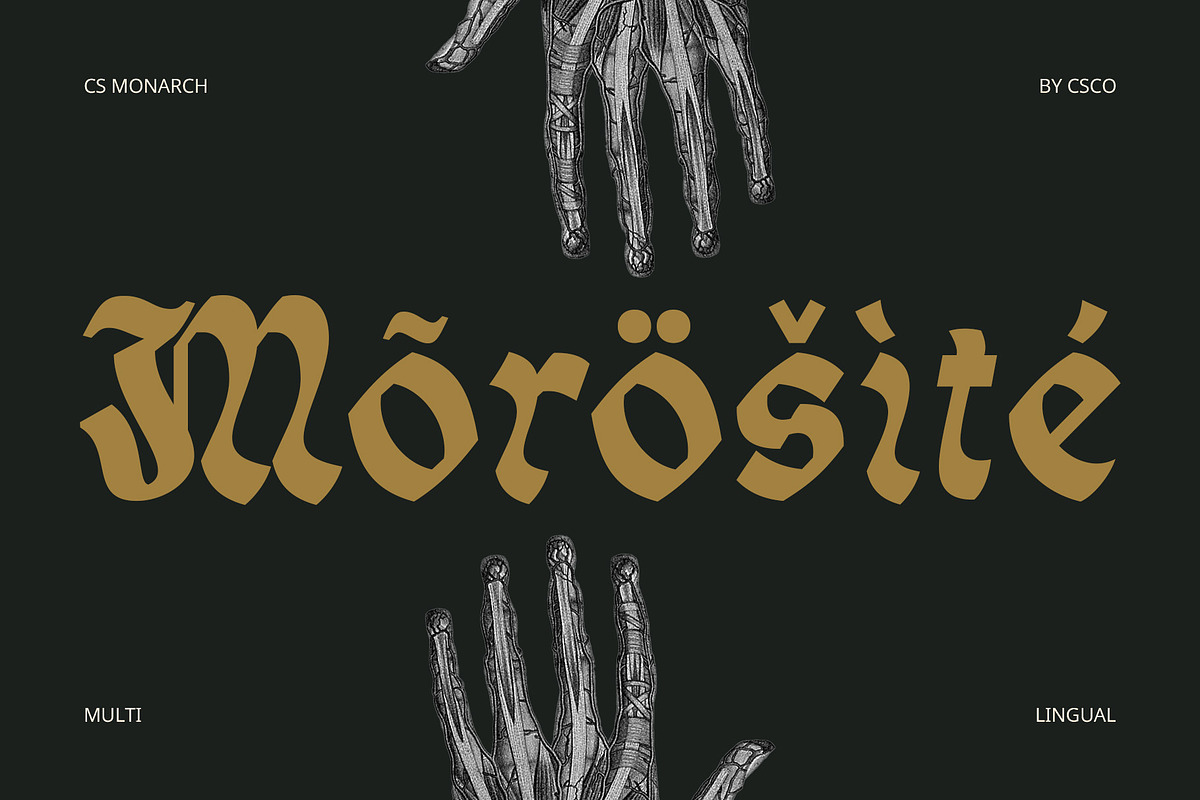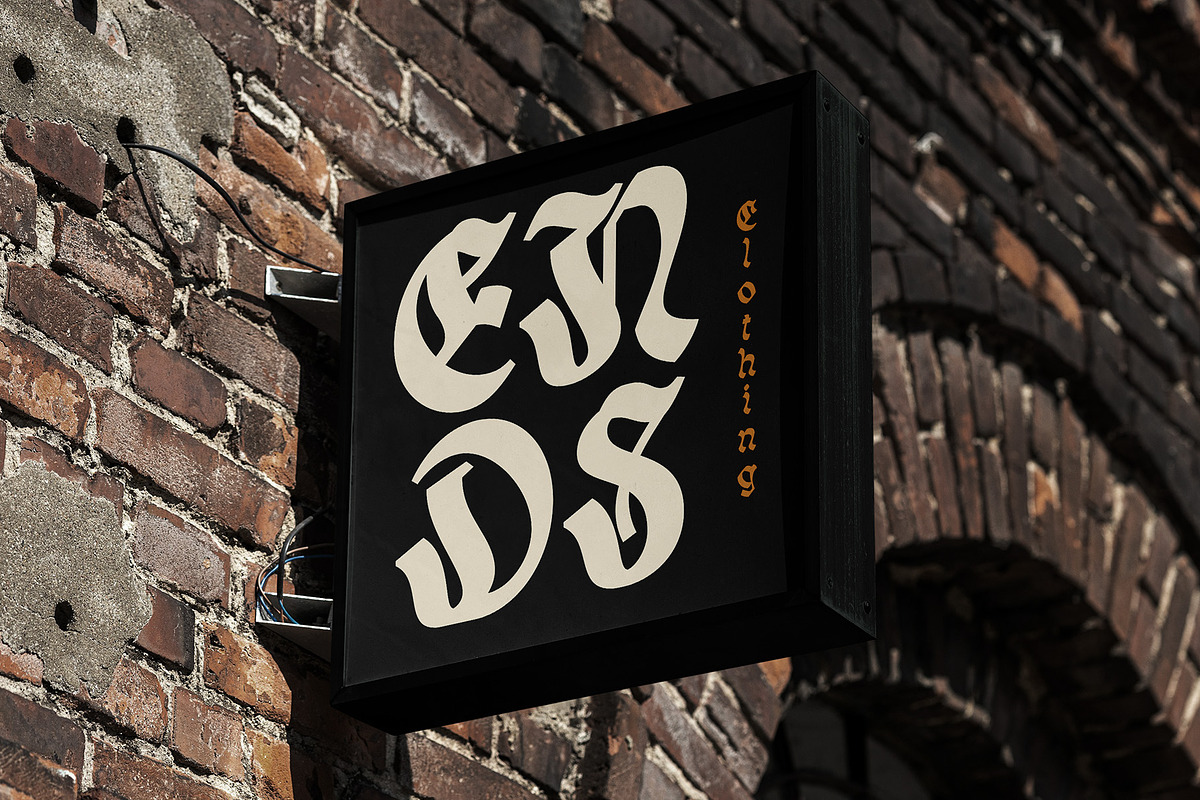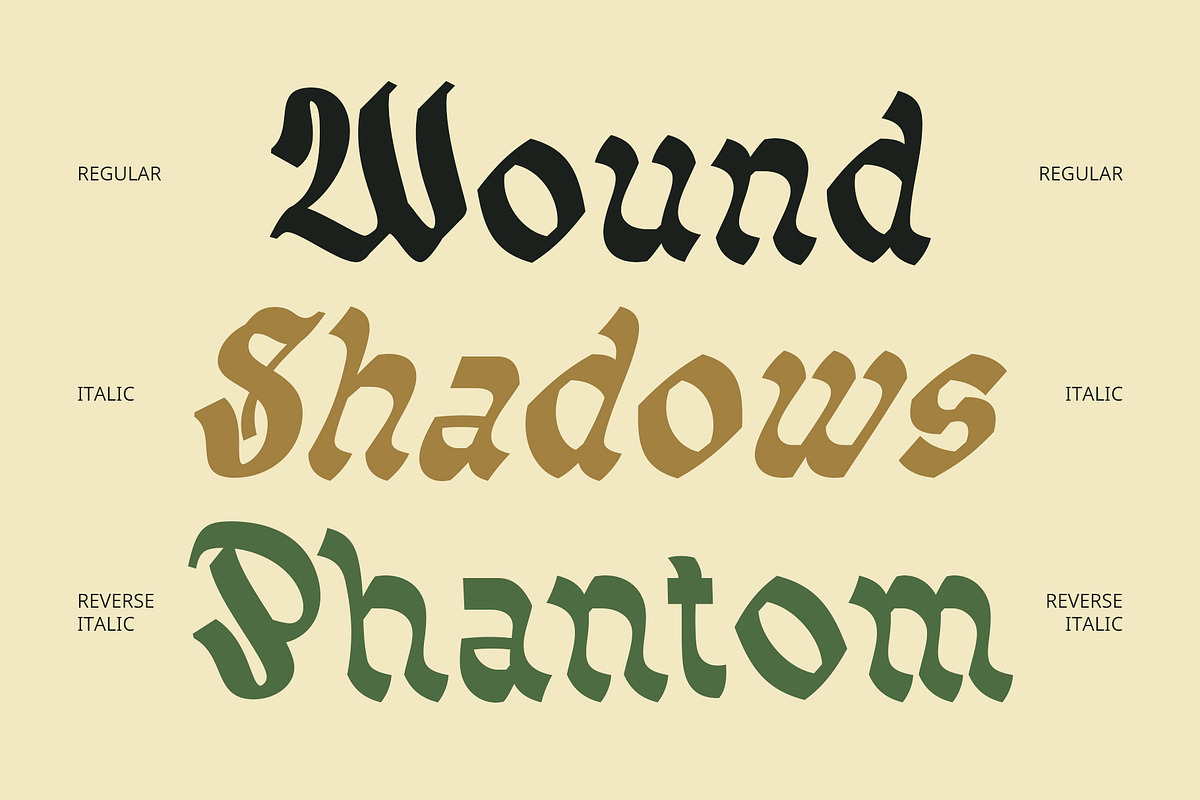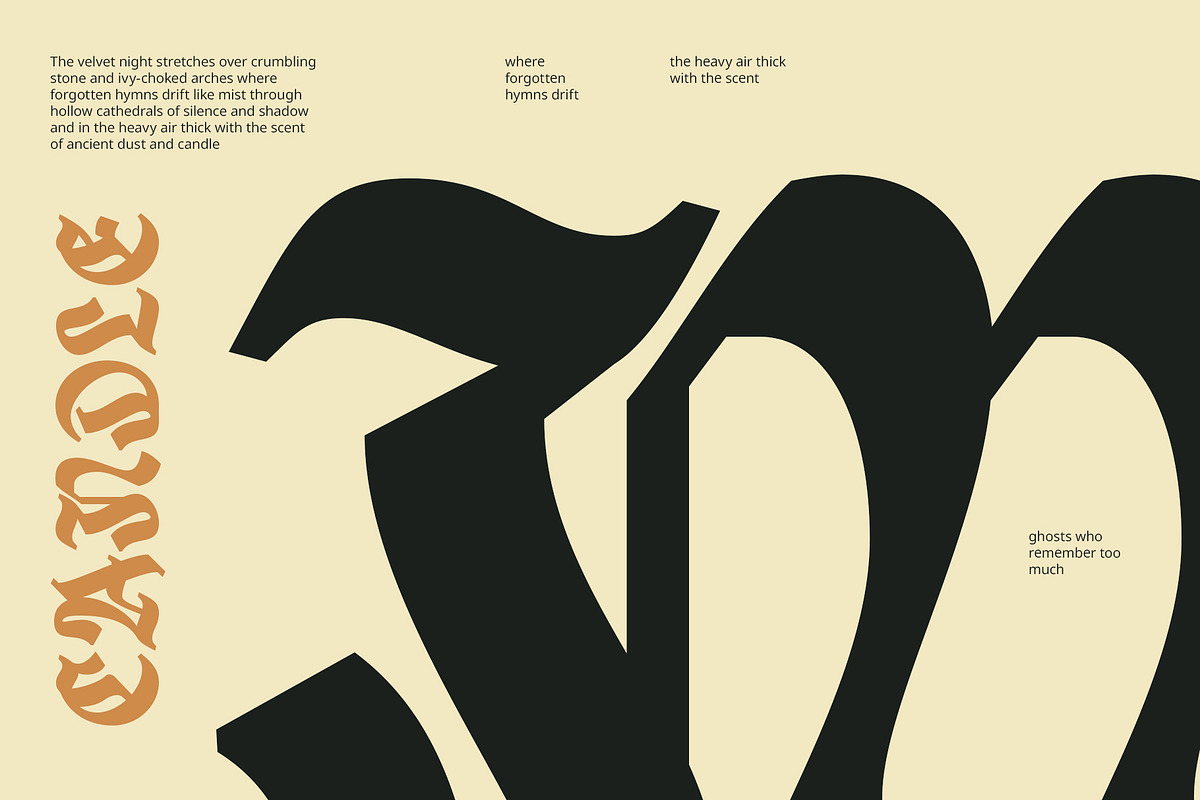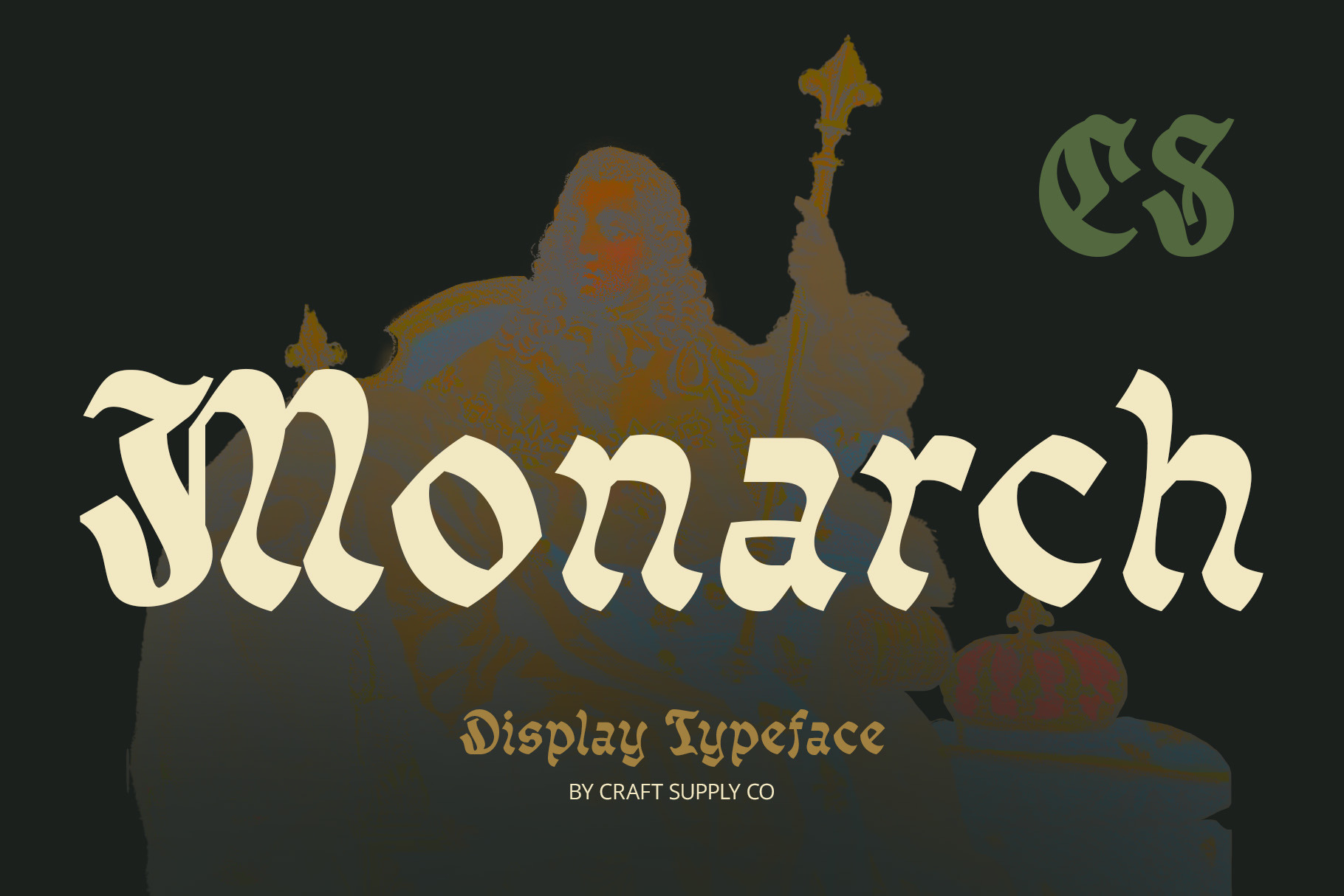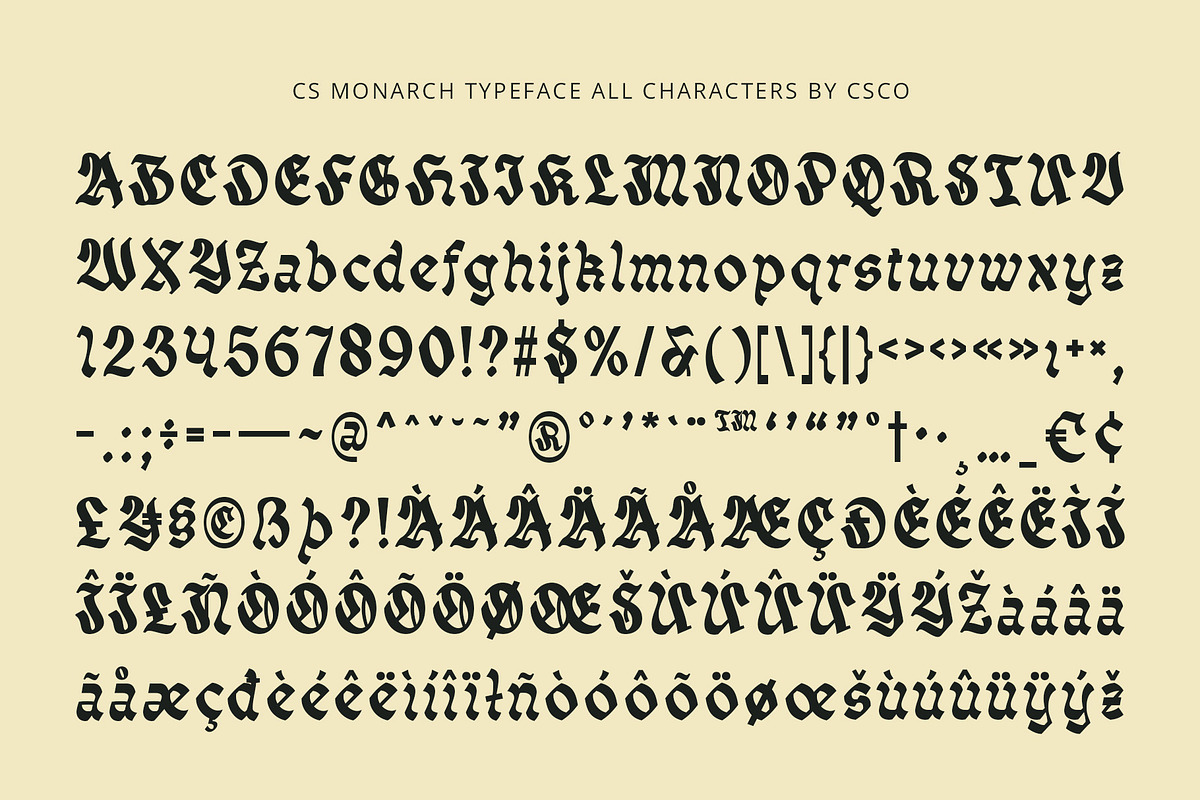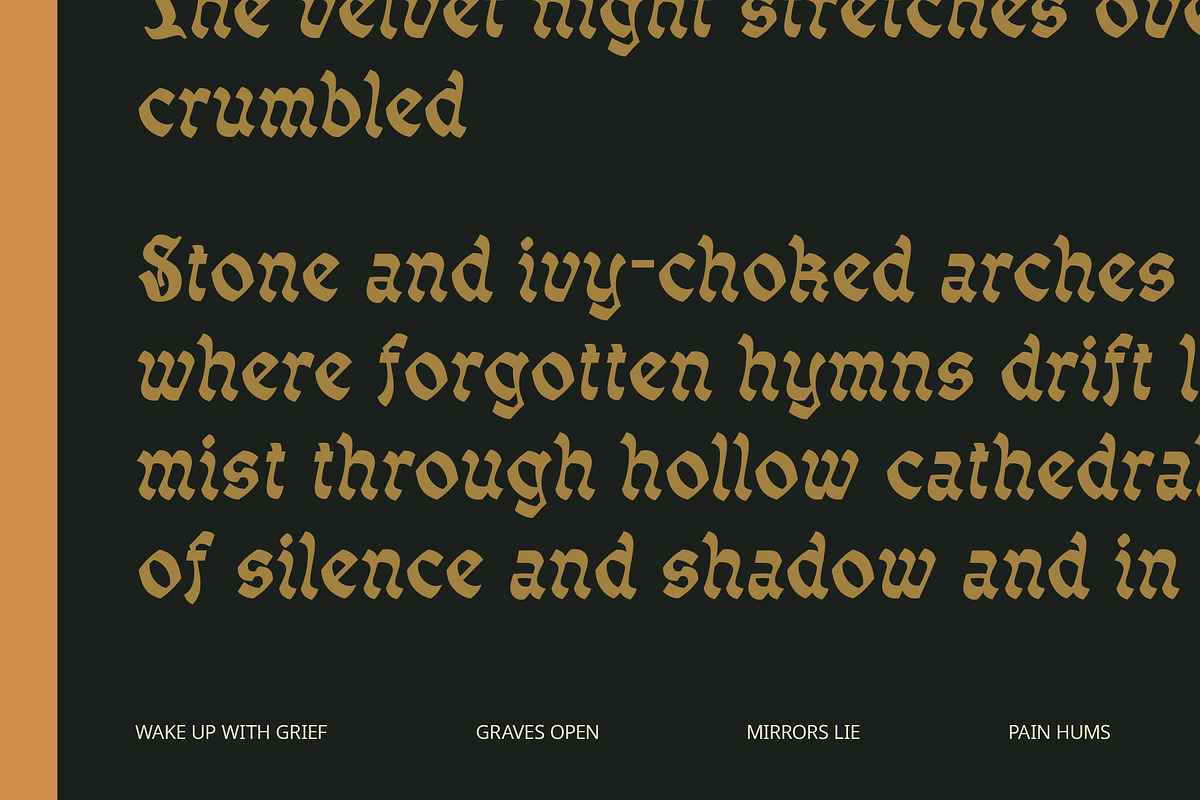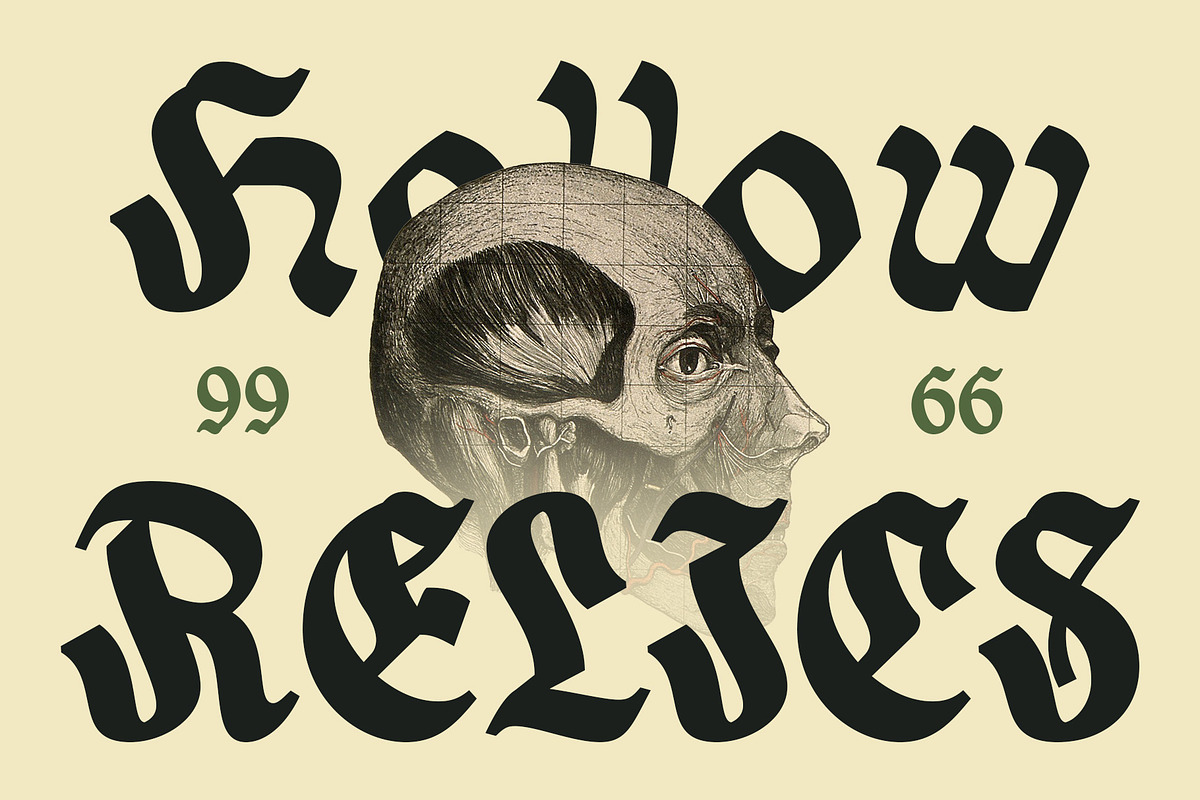
CS Monarch – Blackletter Font
CS Monarch – Blackletter Font: Bold Tradition Reimagined
Classic Roots with Contemporary Refinement CS Monarch – Blackletter Font is a display typeface that merges the historic strength of blackletter with modern clarity. Its refined letterforms maintain the ornamental richness of traditional scripts while embracing a clean, updated structure suitable for today’s visual language.
Elegant Yet Strong Presence This font delivers a bold visual impact with angular, structured strokes and sharp contours, creating an elegant yet commanding appearance. It evokes a sense of authority and sophistication, making it ideal for designs that demand attention without sacrificing style.
Versatile for Modern Design Needs Despite its historical roots, CS Monarch adapts beautifully to contemporary applications—from modern editorial layouts and fashion branding to cutting-edge posters and visual identities. It brings a timeless edge to any creative project.
Ideal for Statement-Making Visuals Whether you’re designing a standout logo, a high-impact magazine cover, or a bold headline, CS Monarch provides the dramatic flair and precision needed to elevate your work with distinction and style. CS Monarch is not just a decorative font—it’s a design tool for those who want to make an impact. Whether you’re crafting a music album cover, a book title, or a unique packaging concept, this font helps your message stand tall with confidence and artistic flair. Let your designs speak boldly and memorably with the timeless power of CS Monarch.
- CS Monarch Regular
- CS Monarch Italic
- CS Monarch Reverse Italic